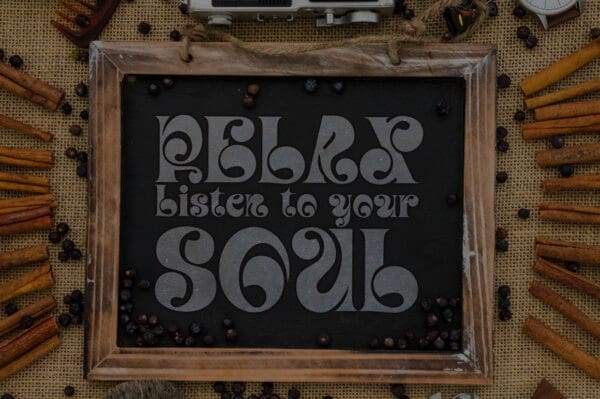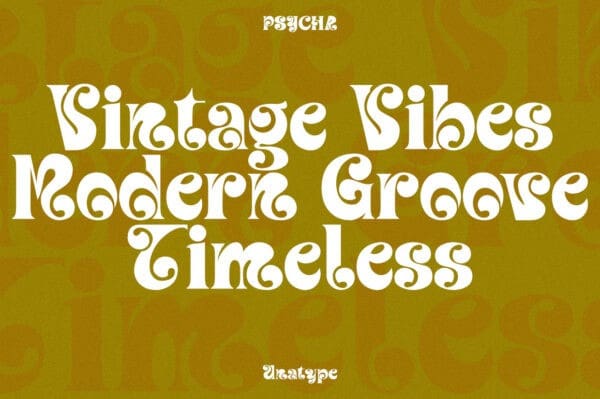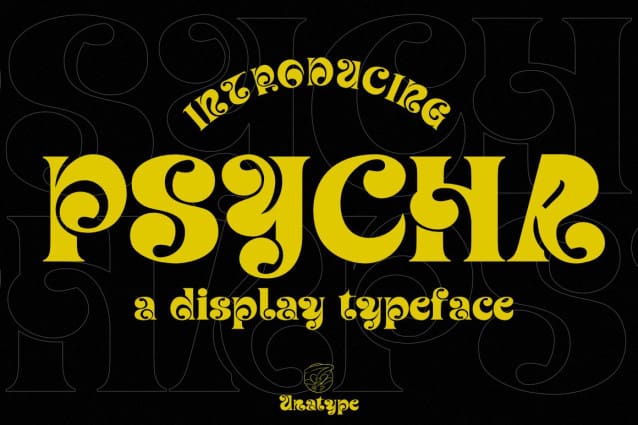
Psycha Display Font
Psycha Display Font, is a captivating display font that embarks on a nostalgic journey to the psychedelic era, infusing vintage charm with modern appeal. Inspired by retro aesthetics, this serif font meticulously crafted each curve and contour to evoke a sense of nostalgia while ensuring readability. With its lowercase, uppercase, numerals, punctuation, and multilingual support, Psycha invites users to experience the enchanting allure of retro typography in every character, igniting a sense of wonder and nostalgia with its psychedelic flair.